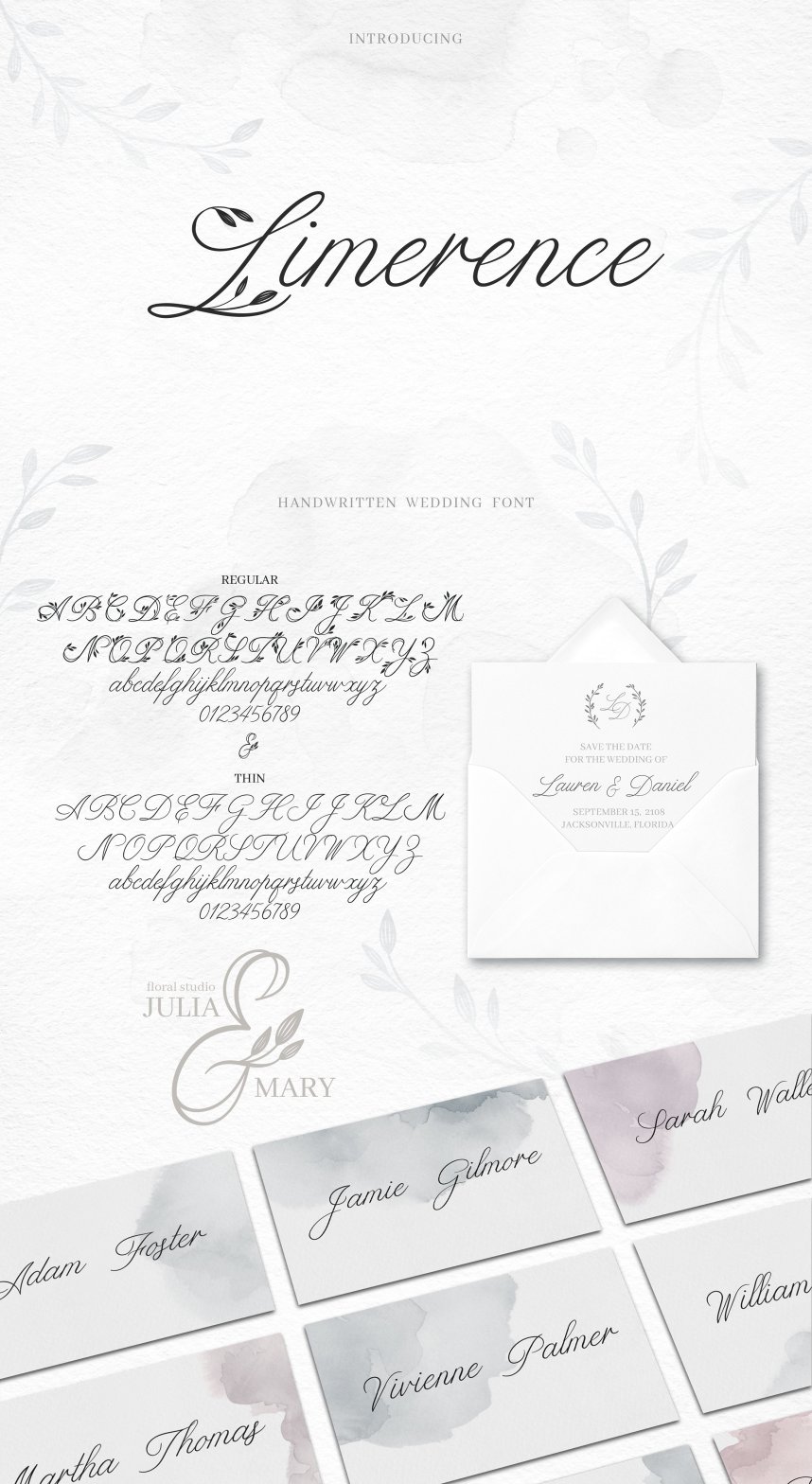
Limerence Script Font
Introducing Limerence. It is designed by Alphabeta, this is a premium font, are sold on creativemarket, but it was great, it is free today for download. Limerence comes in two styles: Regular and Thin. Limerence Regular is an elegant, decorative, feminine font. Floral uppercase letters are ideal for your wedding monograms and logos. Use this font for wedding invitations, branding, packaging, magazines, florist shops, social media, restaurant menus, greeting cards, headers and many more. Limerence Thin is a calligraphic font. It’s perfect for wedding design projects, instagram, invitations, signatures, watermarks, logos, letterpress address, titles, birthday invitations, handwriting and more.